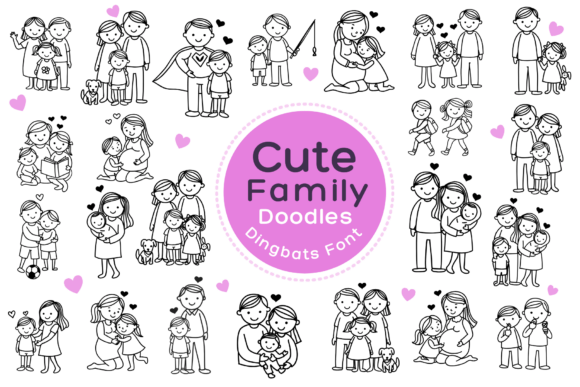
Cute Family Doodles Font: Add a Heartwarming Touch to Your Designs
Are you looking for a unique and charming way to add a personal touch to your creative projects? Look no further than the Cute Family Doodles Font, a delightful collection of hand-drawn family illustrations that are sure to capture the hearts of designers and crafters alike. This Dingbats font features a wide range of adorable icons representing different family dynamics, making it the perfect companion for scrapbooking, nursery decor, personalized gifts, and more.
A Whimsical Collection of Family Illustrations
The Cute Family Doodles Font is a treasure trove of charming illustrations that celebrate the beauty of family. With dozens of icons to choose from, you’ll find everything from new parents and their babies to grandparents, playful siblings, and beloved pets. Each character is designed with a consistent, whimsical line-style that makes it easy to incorporate into any design. Whether you’re creating a custom family tree, a baby shower invitation, or a family reunion banner, this font has got you covered.
The Cute Family Doodles Font is a must-have for designers who specialize in family-oriented products and events. With this font, you can add a playful and heartwarming touch to your designs, making them truly special and memorable. Crafters will also love this font, as it’s perfect for creating handmade cards, scrapbook pages, and other DIY projects. The possibilities are endless, and with this font, you’ll be able to create unique and personalized designs that will stand out from the crowd.
Easy to Use and Versatile
One of the best things about the Cute Family Doodles Font is how easy it is to use. Simply download the font and install it on your computer, and you’re ready to start creating. The font is compatible with most design software, including Adobe Illustrator, Canva, and Microsoft Word. You can use the icons as is, or customize them to fit your design style. The font also pairs beautifully with friendly, rounded sans-serifs or playful scripts, making it easy to create a warm and inviting look.
Ideas for Using the Cute Family Doodles Font
So, how can you use the Cute Family Doodles Font in your designs? Here are a few ideas to get you started:
• Baby shower invitations: Add a playful touch to your baby shower invitations with cute illustrations of babies, parents, and grandparents.
• Family reunion banners: Create a custom banner for your family reunion with illustrations of family members and beloved pets.
• Scrapbooking: Use the font to add a personal touch to your scrapbook pages, with illustrations of family members, pets, and special memories.
• Nursery decor: Create custom wall art for a nursery with illustrations of adorable babies, animals, and other whimsical designs.
• Personalized gifts: Use the font to create custom gifts, such as mugs, t-shirts, and tote bags, with illustrations of family members or special memories.
Why Choose the Cute Family Doodles Font?
So, why choose the Cute Family Doodles Font for your designs? Here are just a few reasons:
• Unique and charming illustrations: The font features a wide range of adorable illustrations that are sure to capture the hearts of designers and crafters alike.
• Versatile: The font can be used in a wide range of designs, from scrapbooking and nursery decor to personalized gifts and family reunion banners.
• High-quality design: Each character is designed with a consistent, whimsical line-style that makes it easy to incorporate into any design.
Author Pui Art
In conclusion, the Cute Family Doodles Font is a must-have for designers and crafters who want to add a heartwarming touch to their creative projects. With its wide range of adorable illustrations, ease of use, and versatility, this font is perfect for anyone who wants to create unique and personalized designs. Whether you’re creating a custom family tree, a baby shower invitation, or a family reunion banner, this font is sure to bring a smile to your face and a touch of whimsy to your designs.